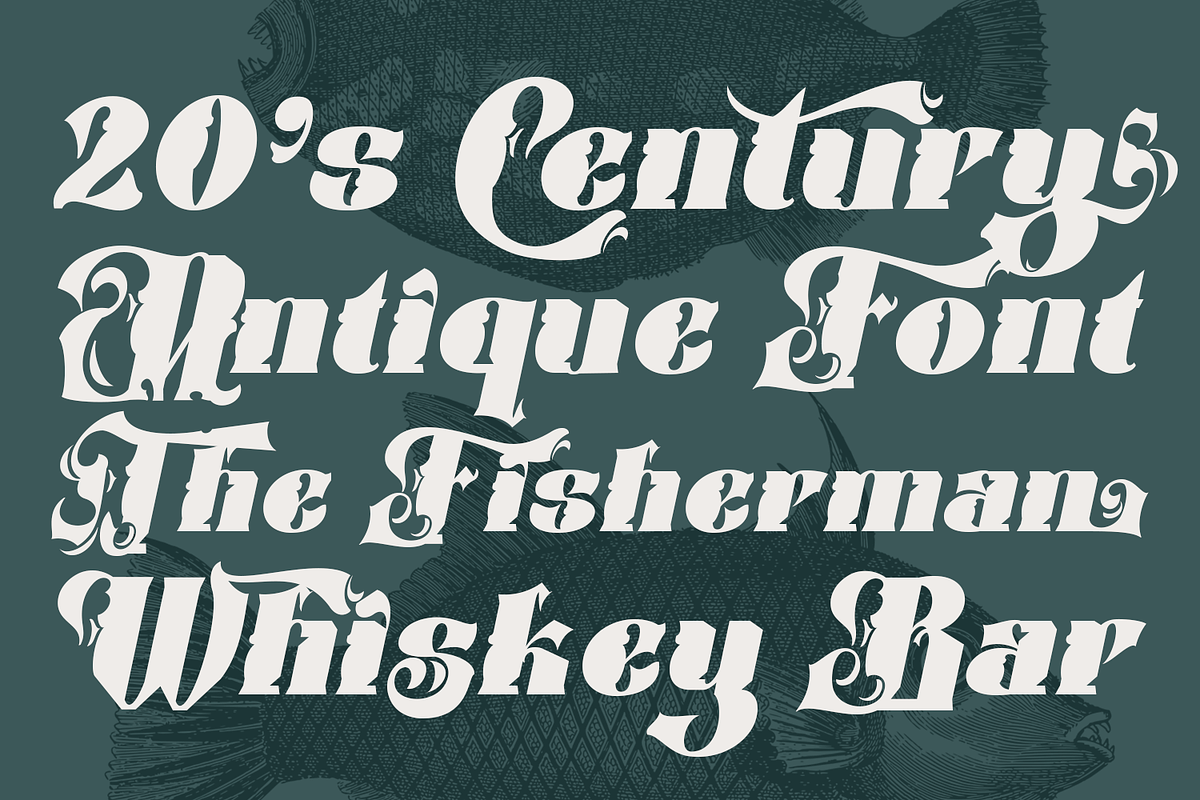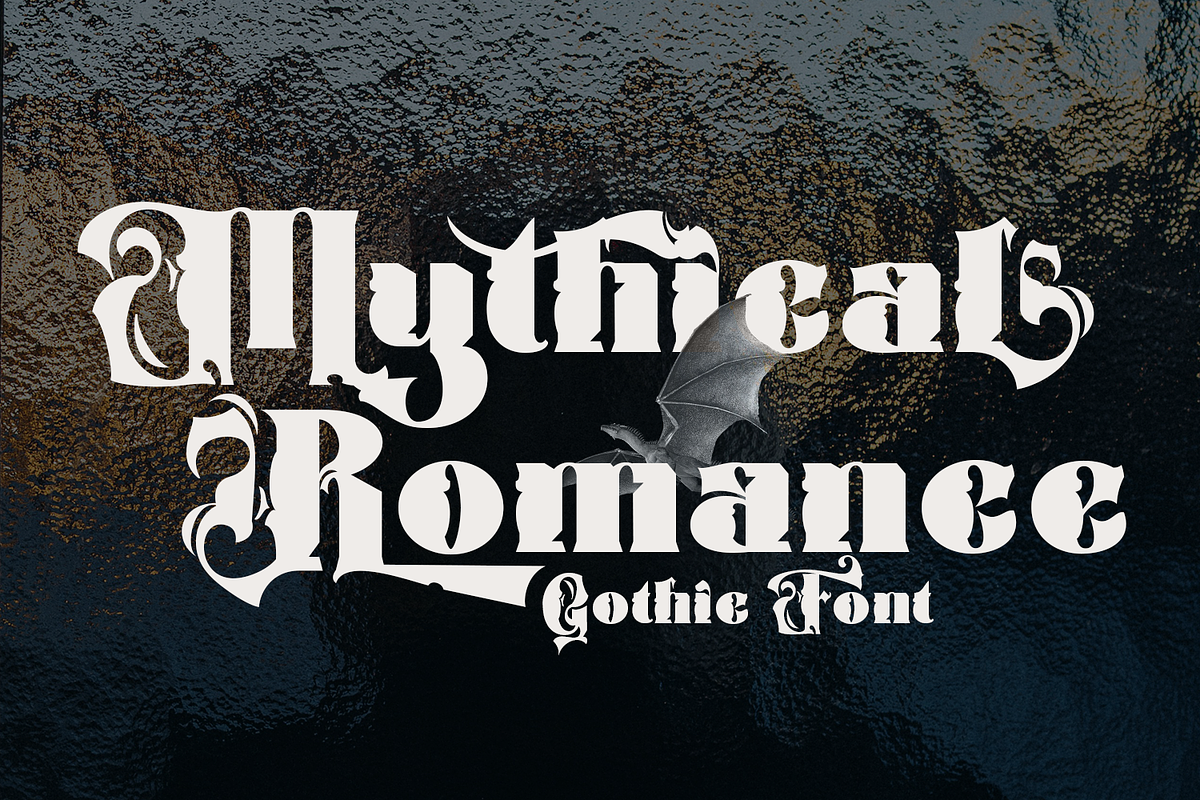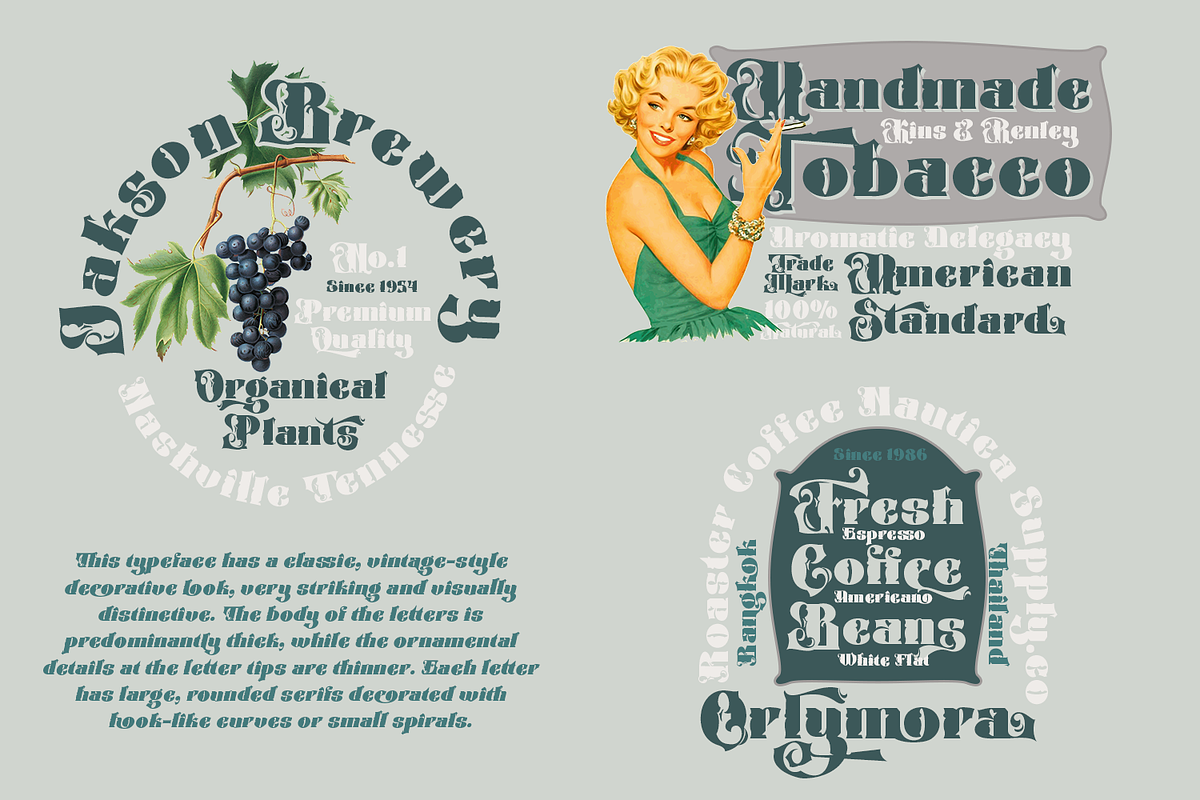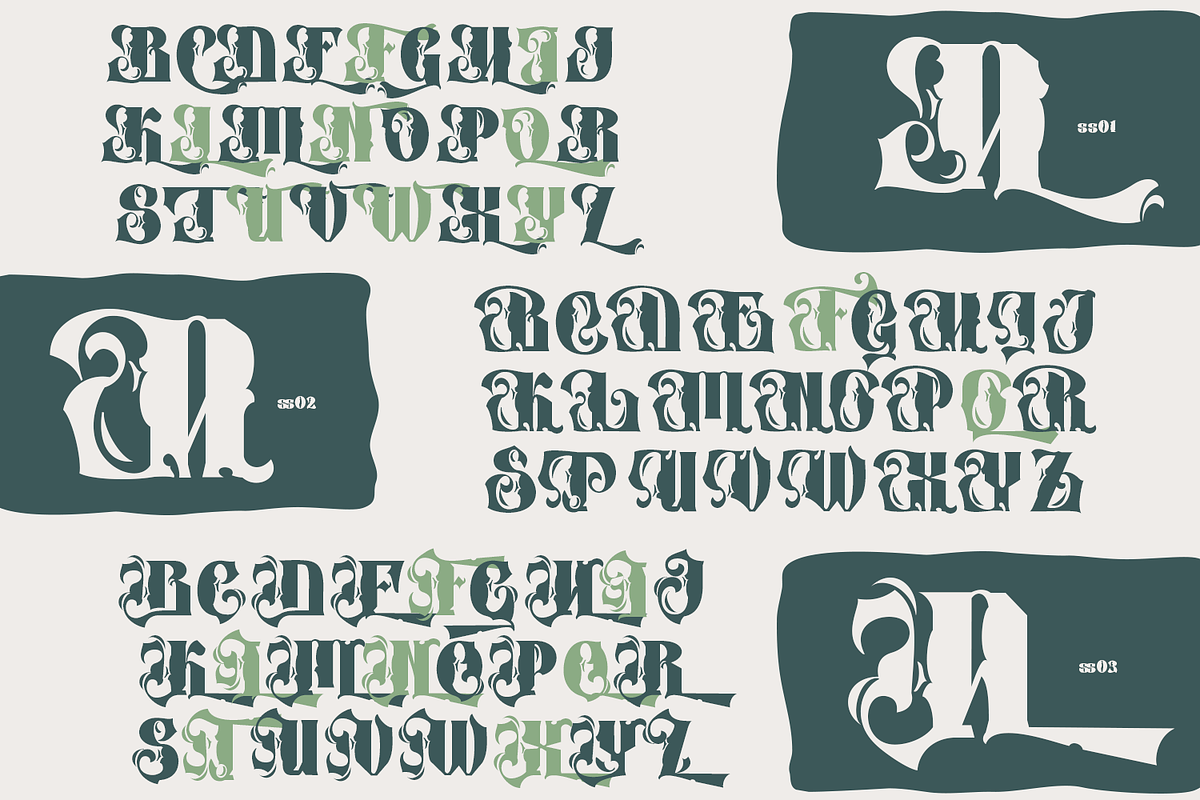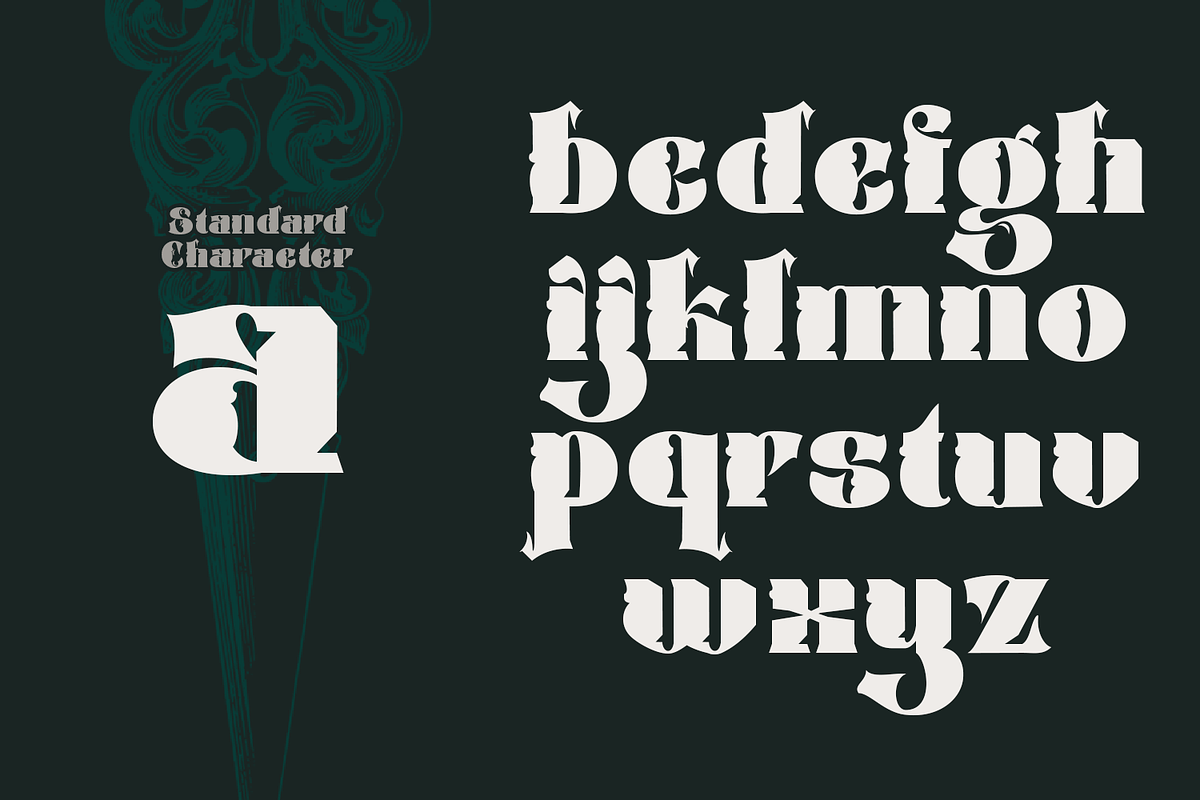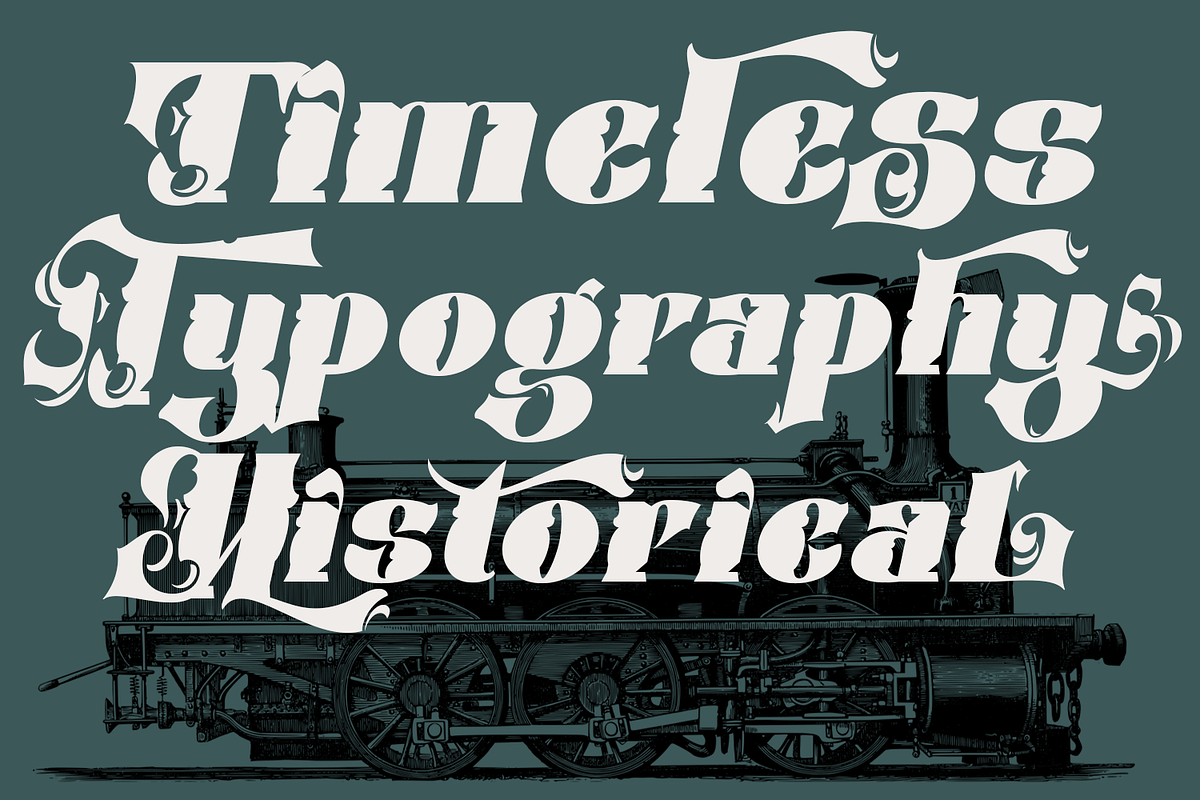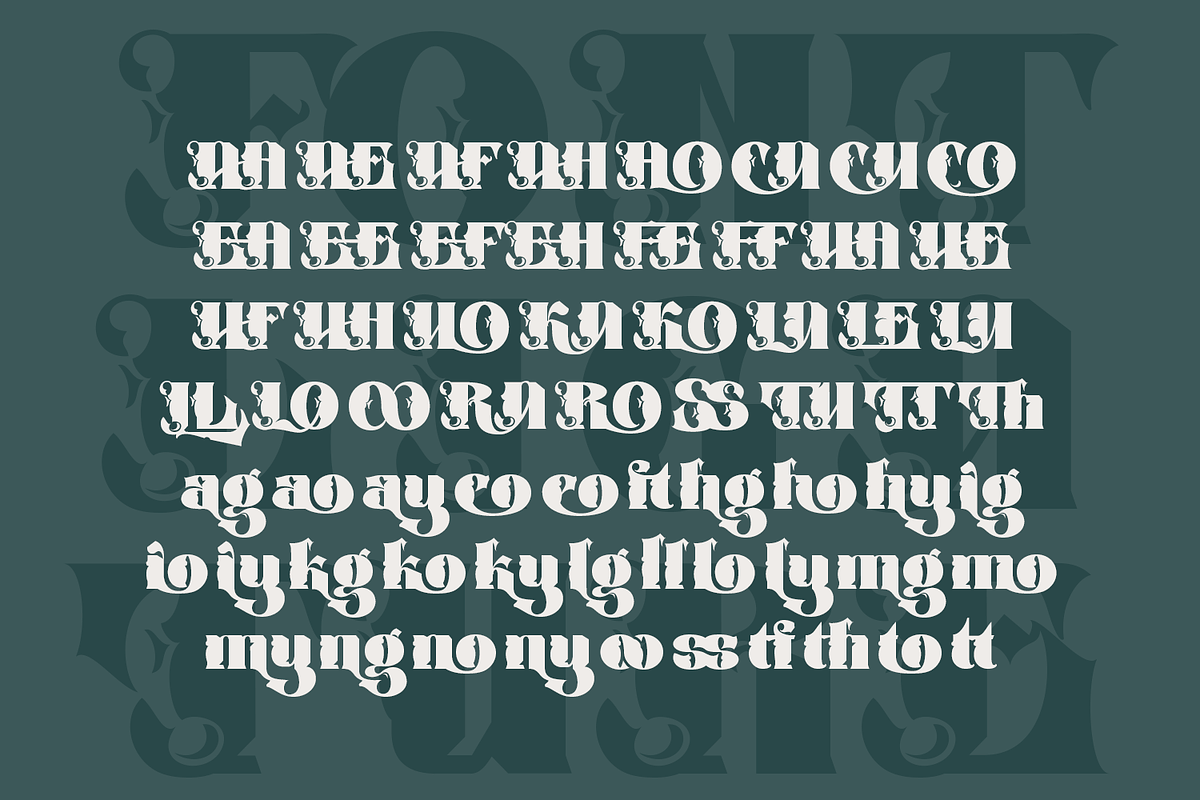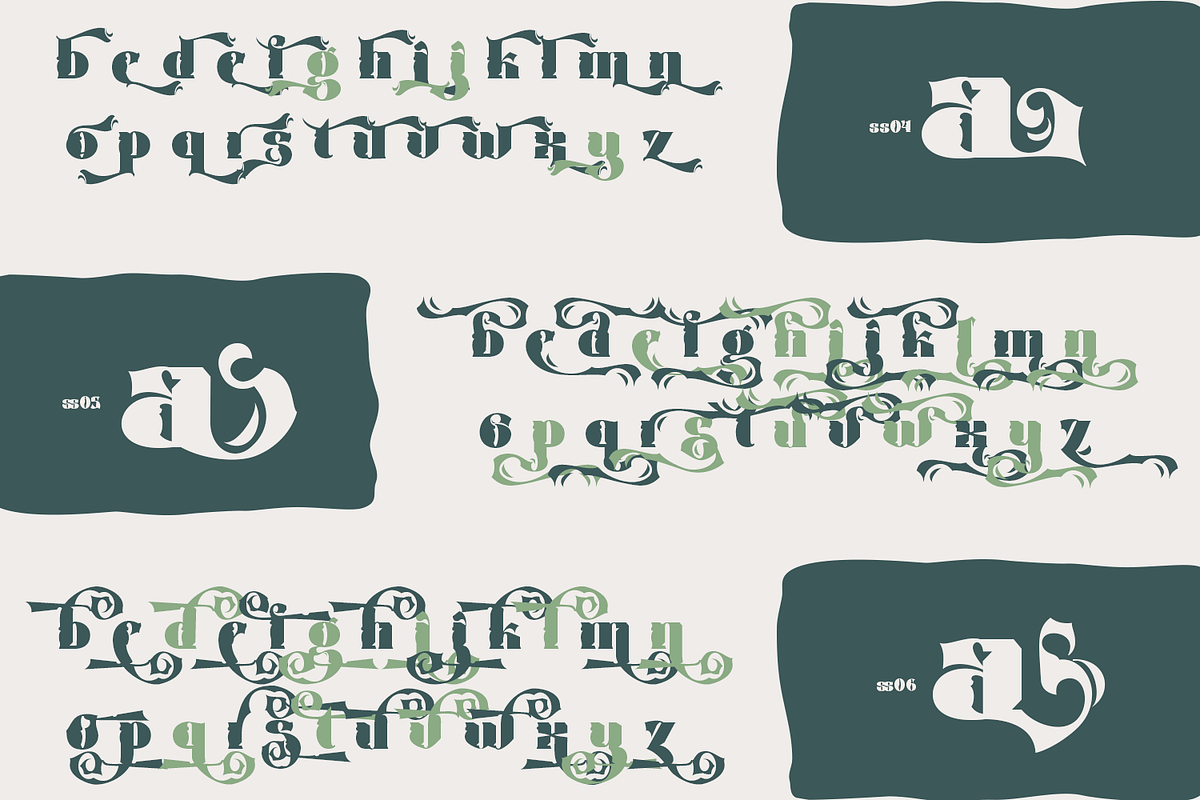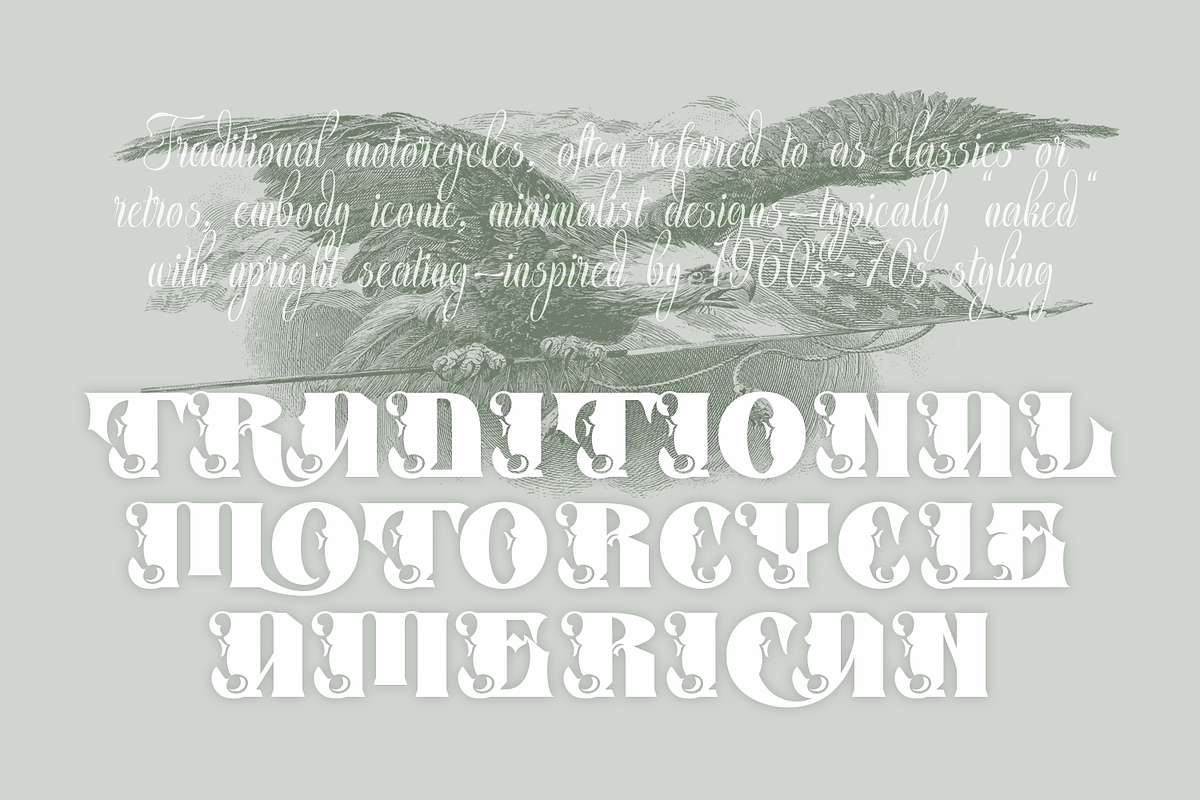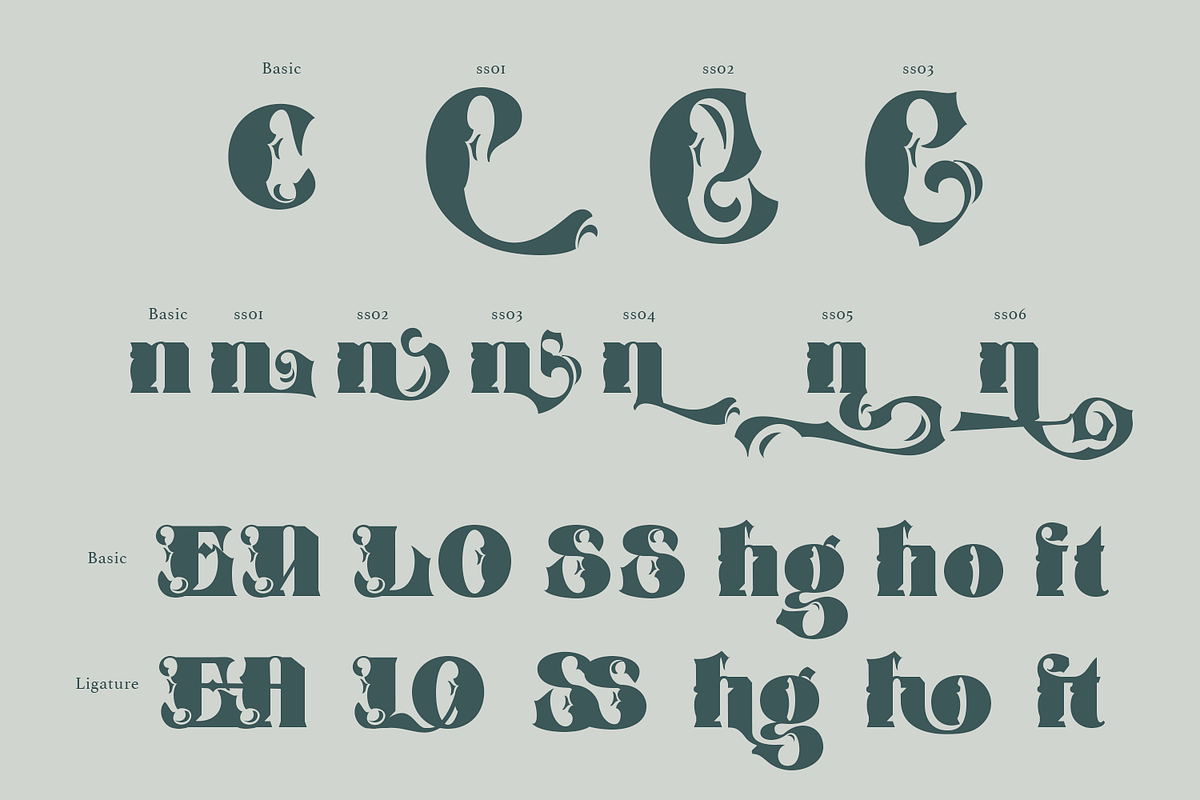
Puhyaka Mythology Font
Introducing Puhyaka mythology font, this typeface has a classic, vintage-style decorative look, very striking and visually distinctive. The body of the letters is predominantly thick, while the ornamental details at the letter tips are thinner. Each letter has large, rounded serifs decorated with hook-like curves or small spirals. This contrast makes the letters look dramatic and striking, giving them an artistic and classic feel.
This typeface is best used for titles, logos, and key visual elements that want to immediately attract attention and convey an artistic and classy impression.